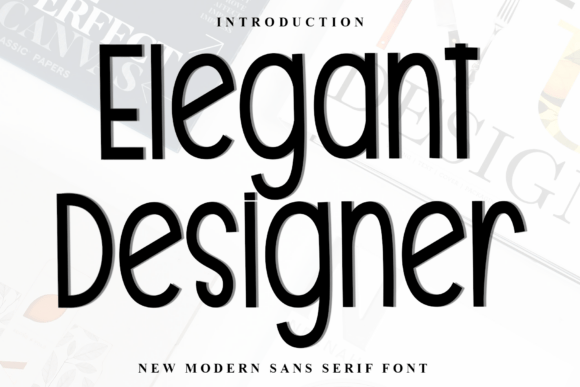
Elegant Designer Font: The Perfect Choice for Creative Designs
In the world of typography, fonts play a crucial role in conveying the tone and personality of a design. Among the numerous font styles available, the Elegant Designer Font stands out for its unique blend of casualness and creativity. This font is designed to exude warmth and friendliness, making it an ideal choice for personal projects, invitations, and social media graphics.
The Characteristics of Elegant Designer Font
The Elegant Designer Font is distinguished by its round, playful strokes that create a relaxed and approachable feel. The font’s charming, hand-drawn aesthetic adds a fun and unique touch to any design, making it perfect for creative projects. The font’s casual and creative vibe is well-suited for designs that require a personal touch, such as:
- Personal invitations and greeting cards
- Social media graphics and posts
- Blogger and WordPress themes
- Branding and packaging designs
The Benefits of Using Elegant Designer Font
The Elegant Designer Font offers several benefits to designers and creators. Some of the key advantages of using this font include:
- Unique and creative aesthetic: The font’s hand-drawn design and playful strokes add a touch of personality to any design.
- Versatile: The font is suitable for a range of design projects, from personal invitations to social media graphics.
Tips for Using Elegant Designer Font Effectively
To get the most out of the Elegant Designer Font, here are some tips for using it effectively:
- Pair with complementary fonts: Combine the Elegant Designer Font with other fonts that complement its playful and creative vibe.
- Use in moderation: While the font is perfect for creative projects, it’s essential to use it in moderation to avoid overwhelming the design.
- Experiment with colors and textures: The Elegant Designer Font looks great with bold colors and textures, so don’t be afraid to experiment and find the perfect combination.
The Elegant Designer Font is a versatile and creative font that is perfect for designers and creators looking for a unique and playful aesthetic. Its standard PUA Encoded glyphs make it easy to use in various design software, and its charming, hand-drawn design adds a fun and unique touch to any project. Whether you’re working on personal invitations, social media graphics, or branding designs, the Elegant Designer Font is an excellent choice.
Key Features:
- Round, playful strokes
- Charming, hand-drawn aesthetic
- Perfect for personal projects, invitations, and social media graphics